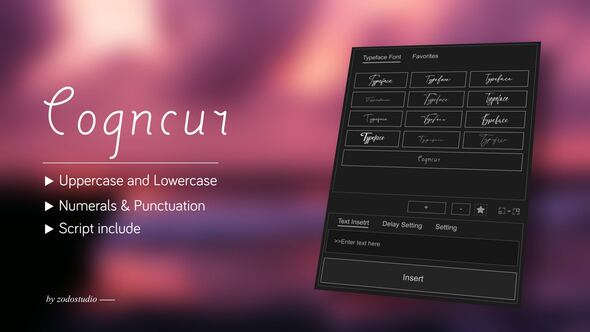
The Cogncur animated typeface is a part of a refined collection of kinetic typography projects, specially crafted for modern design aesthetics. Whether you're producing YouTube intros, Instagram stories, promos, trailers, or branding elements, this asset can be a total game-changer.
🔧 What is Videohive 58466693 – Cogncur Animated Typeface?​
The Videohive 58466693 – Cogncur is a professional animated typeface toolkit. Designed with sleek animations and seamless transitions, this After Effects project file allows users to create dynamic and eye-catching titles with ease.
This typeface pack includes:
• ✔️ Stylish & fluid typography animations
• ✔️ Easy-to-edit templates
• 📂 Pre-animated character set (A-Z, 0-9, symbols)
• 📂 Stylish transitions & customizable settings